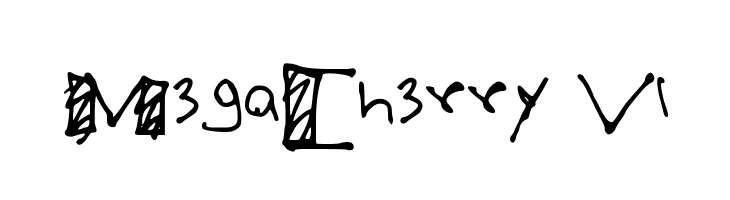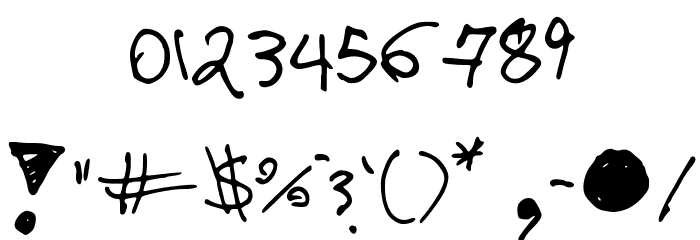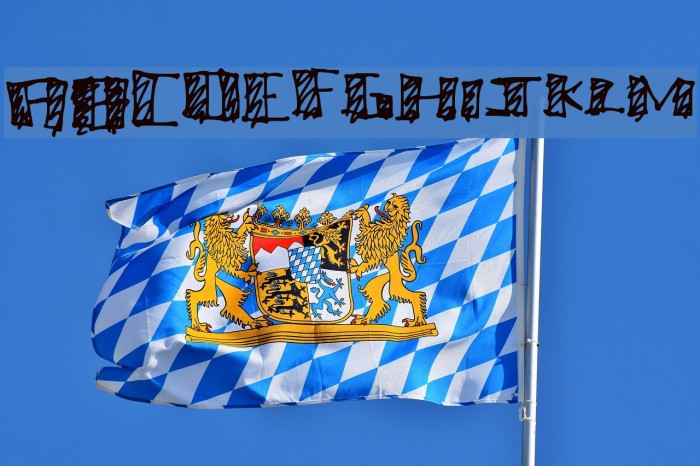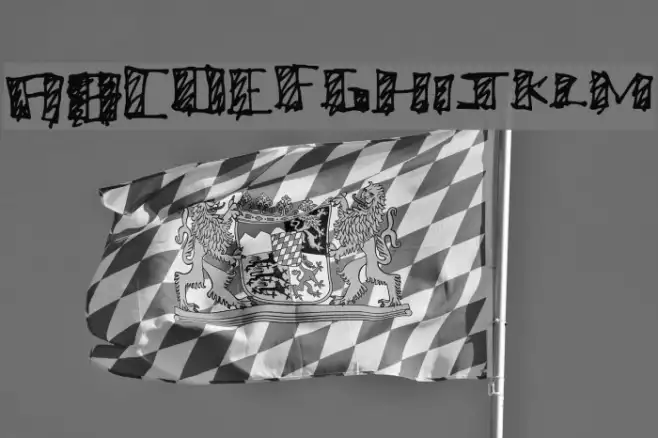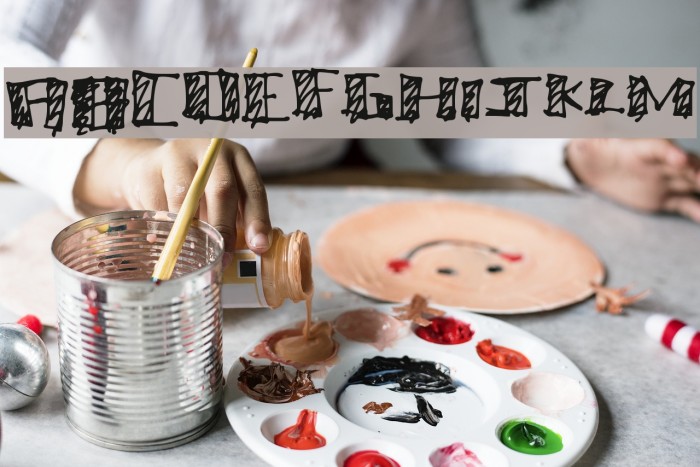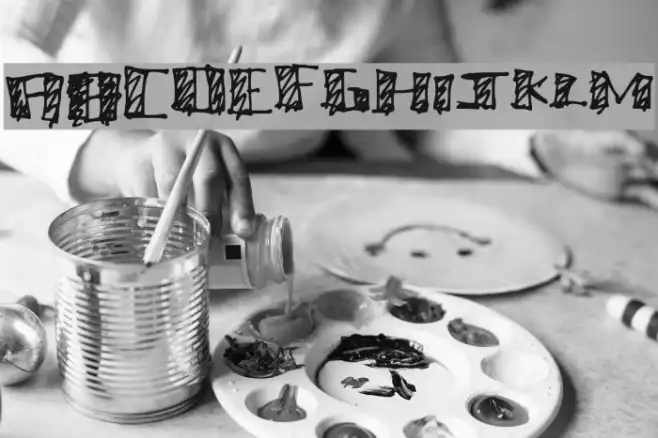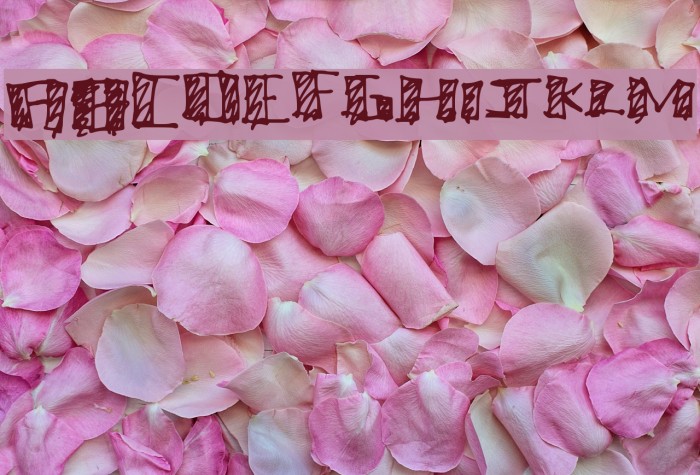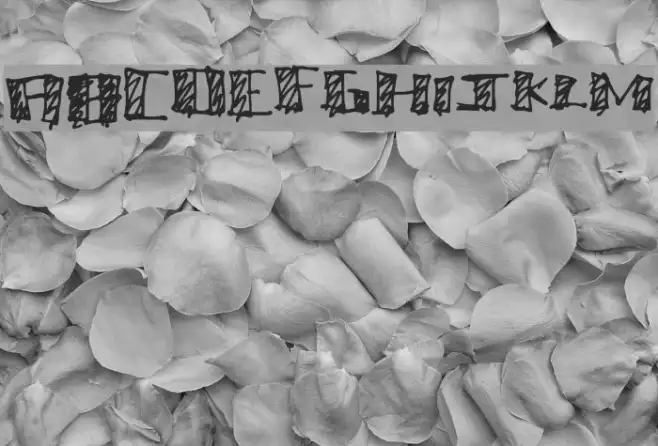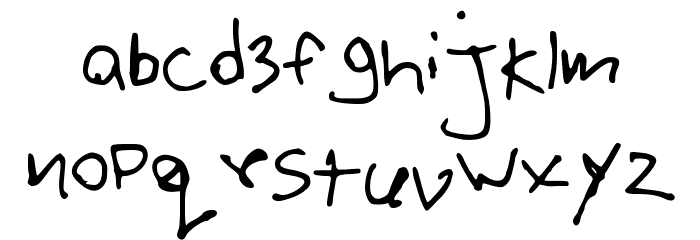
MegaCherry V1 Font
This font exhibits a highly expressive and artistic style, characterized by its sketch-like, hand-drawn appearance. The uppercase letters are bold and irregular, with a rough, textured look that suggests a sense of spontaneity and creativity. The lowercase letters maintain a similar hand-drawn quality, offering a more fluid and casual feel. The numerals and special characters continue this theme, providing a cohesive and playful aesthetic. This font's unique style makes it stand out, ideal for projects that require a personal, artistic touch.
A sketch-like, hand-drawn font with a bold, artistic style.
• Proposed Projects: Ideal for art projects, creative branding, posters, and any design that benefits from a personal, handcrafted touch.
• Category: Decorative/Display
• Bold: Yes
• Italic: No
• Weight: Bold
• Width: Normal
• Character Spacing: Normal
• Contrast: Low
• Overall Style: Artistic, Hand-drawn
• Use Case: Logos, Posters, Creative Branding